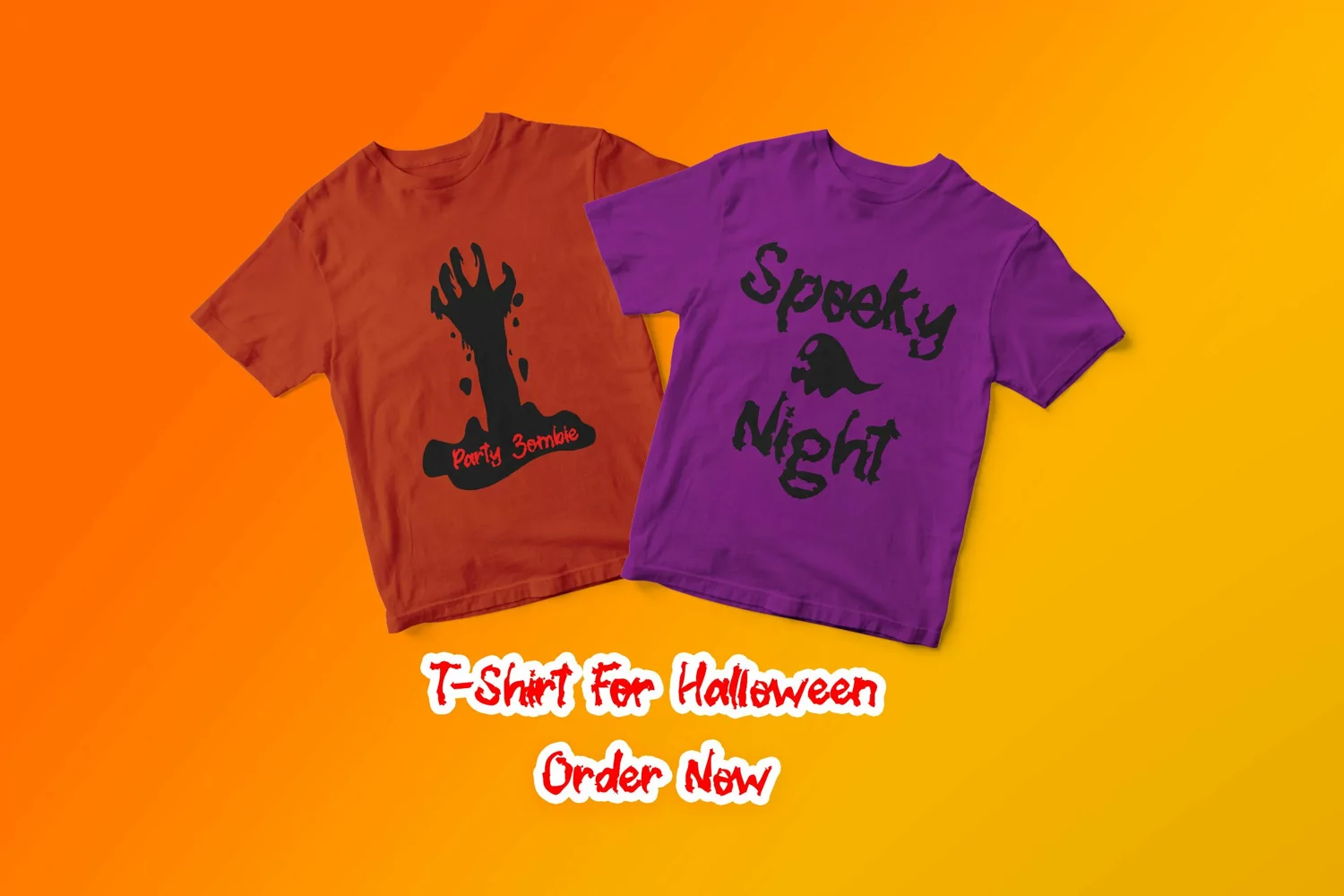
Hunster Monster is a unique display font. Add it to your most creative Halloween themed ideas and notice how it makes them come alive!
Hunster Monster